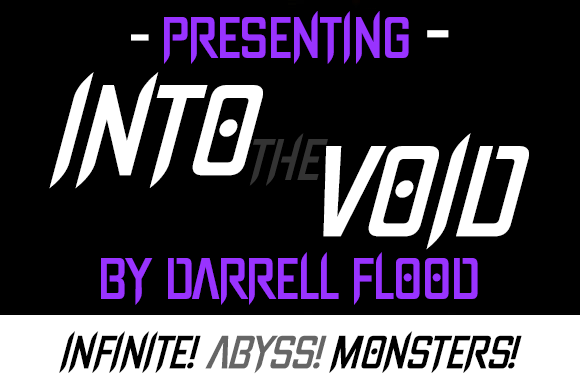
Prepare to be spellbound by Into The Void, a font family of cosmic horror! Journey beyond the mundane and embrace the enchanting designs that will captivate your senses. Experience the boundless possibilities of designing. Witness the summoning of unholy forces, fathom the vastness of cosmic wonder, and delve into the depths of alien encounters with just a few clicks.
Born from the twisted dreamscapes of Dadiomouse, Into The Void Font is a typographic masterpiece that will haunt your designs in the best way possible. Immerse yourself in a haunting display font family that will make your designs stand out like a radiant beacon in the darkest night. With Into The Void, your words will dance with a sinister flair that's sure to enthrall your audience.
Step into the extraordinary with Into The Void Font. Picture your resume adorned with letters that seem to drip with dark enchantments, effortlessly captivating the attention of potential employers. Watch as your designs take on an otherworldly glow, evoking a sense of curiosity and intrigue that will leave a mark.
Into The Void Font is not just a collection of characters; it's a portal to a universe of boundless creativity. Unleash the power of imagination and weave tales that seep with extraterrestrial intrigue. Create posters that induce goosebumps, logos that ignite curiosity, and social media posts that spellbind audiences. The possibilities are infinite, just like the cosmos itself.
So, surrender to the allure of the unknown and let Into The Void Font guide you on a creative odyssey that will leave your audience mesmerized. Embrace the boldness of a font family that whispers tales of the uncanny and watch as your designs transform into captivating works of art.